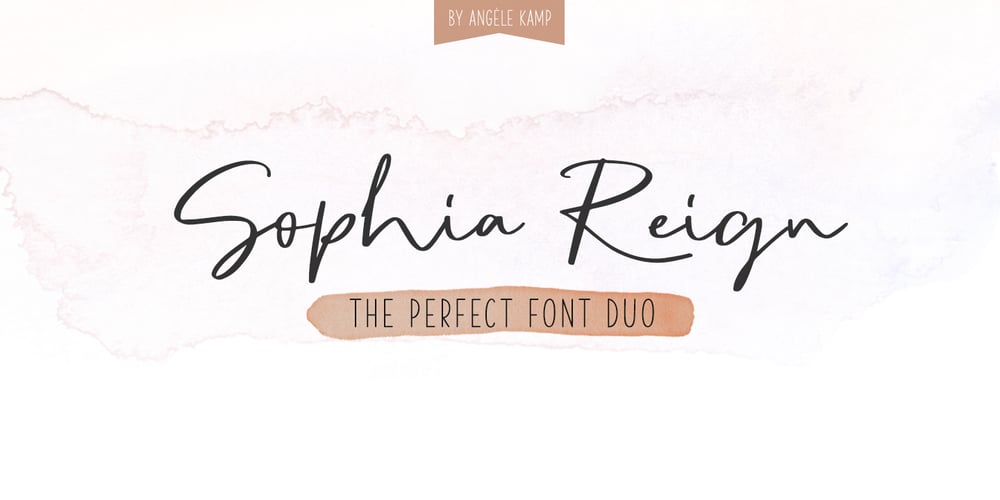
Sophia Reign
Sophia Reign font
Sophia Reign Font Family was designed by Angele Kamp and published by Angele Kamp. Sophia Reign contains 2 styles and family package options. Meet Sophia Reign, the perfect font duo! She’s got a handwritten signature font and an all-caps font that pairs perfectly with it. Use it for logos, magazines, Instagram quotes, branding, advertisement, and more.Buy this awesome font duo now and start creating!